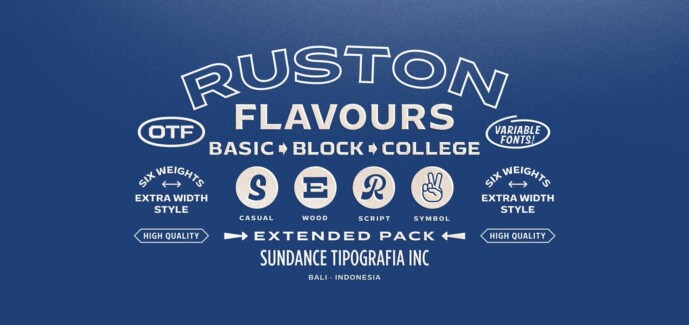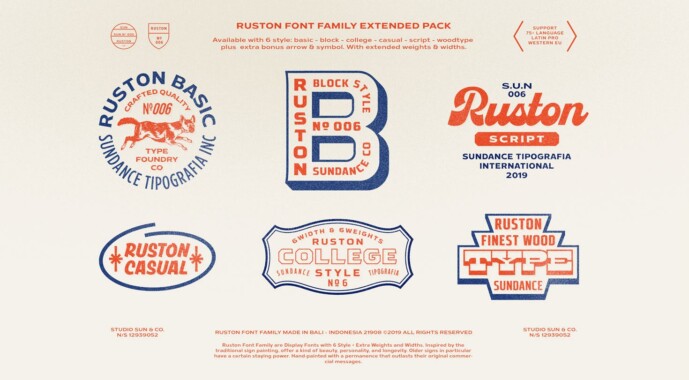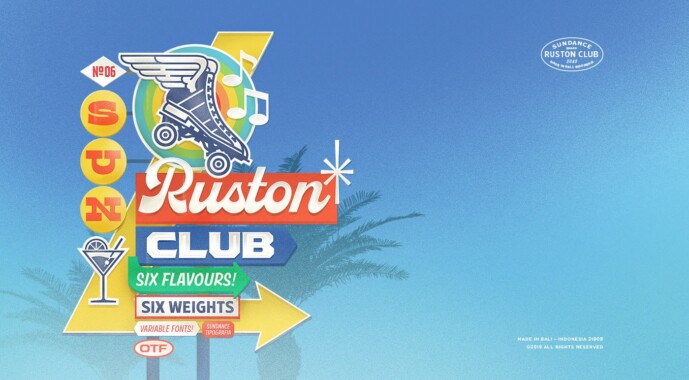
Ruston Font Family
Designer: Sundance Tipografia
Ruston Font Family a Display Fonts with 6 Style + Extra Weights and Widths. Inspired by the traditional sign painting, offer a kind of beauty, personality, and longevity. Older signs in particular have a certain staying power. Hand-painted with a permanence that outlasts their original commercial messages.